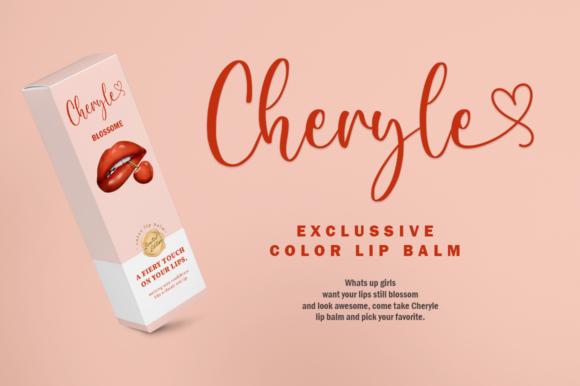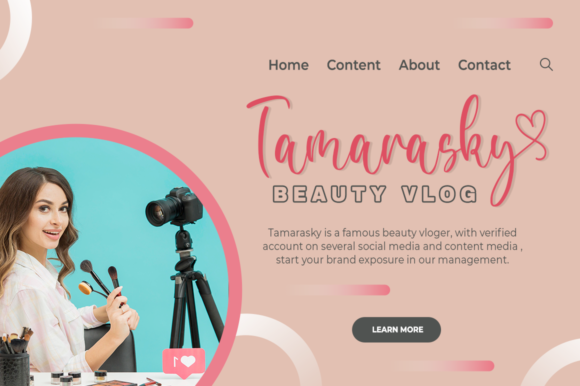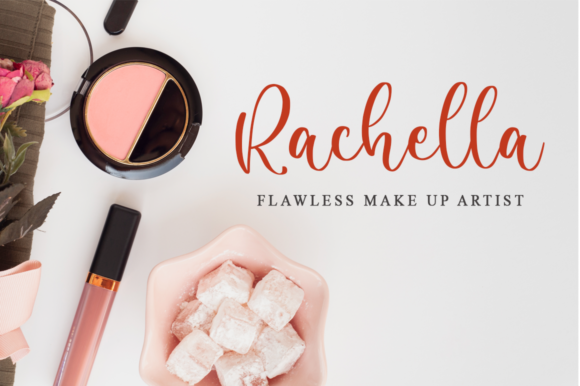
Introduction to Melodila Font
As a designer, there’s nothing quite like the thrill of seeing a creative project come to life. It’s the moment when all the pieces fall into place, and your vision finally takes shape. For me, it was the creation of a logo for a new client that sparked the idea for this article. I reached for the perfect font to add a touch of elegance and whimsy, and that’s when I discovered the beautiful Melodila Font.
The Melodila Font is a timeless, handwritten masterpiece that’s sure to elevate any design. With its PUA encoded features, accessing all the glyphs and swashes is a breeze, making it an invaluable resource for designers. Whether you’re working on a branding project, creating eye-catching logos, or crafting quotes, this font is the perfect addition to your design arsenal.
As a high-quality design resource, the Melodila Font offers a level of sophistication and charm that’s hard to find elsewhere. And the best part? It’s available for free download, making it an accessible and versatile choice for designers of all levels.
Key Features of Melodila Font
- Unique, elegant design makes it perfect for branding, logos, and titles
Honest Review: Melodila Font
As a designer, I’m always on the lookout for high-quality design resources to elevate my creative projects. The Melodila Font caught my eye, and I was eager to put it to the test.
Here’s what works well: ✨ The font has a beautiful, elegant design that’s perfect for titles and headings. It’s highly legible and versatile, making it suitable for a wide range of creative projects. I also appreciate the fact that it’s available for free download, making it a great addition to any design arsenal.
One of the standout features of the Melodila Font is its transparent background, which allows it to blend seamlessly with any design element. This makes it perfect for creating a cohesive look and feel in your designs.
- What I like about the Melodila Font:
- High-quality design that’s perfect for titles and headings
However, there are a few limitations to consider: ⚠️ The font may not be suitable for body text, as it can be quite ornate and difficult to read in large quantities. Additionally, the free version has some limitations on commercial use, so be sure to check the licensing terms before using it in a professional project.
Overall, I’m impressed with the Melodila Font, and I’d definitely recommend it to designers looking for a high-quality, free design resource. With its elegant design and versatile use cases, it’s a great addition to any design toolkit.
Tips for Getting the Most Out of Melodila Font
Here are a few tips for getting the most out of the Melodila Font:
- Experiment with different font sizes and styles to find the perfect look for your design.
- Use the font in combination with other design elements to create a cohesive and visually appealing design.
- Take advantage of the font’s high-quality design to create a professional-looking design.
The Melodila Font is a versatile design resource that can be used in a variety of creative projects, including:
- Posters and advertisements
- Personal projects and portfolios